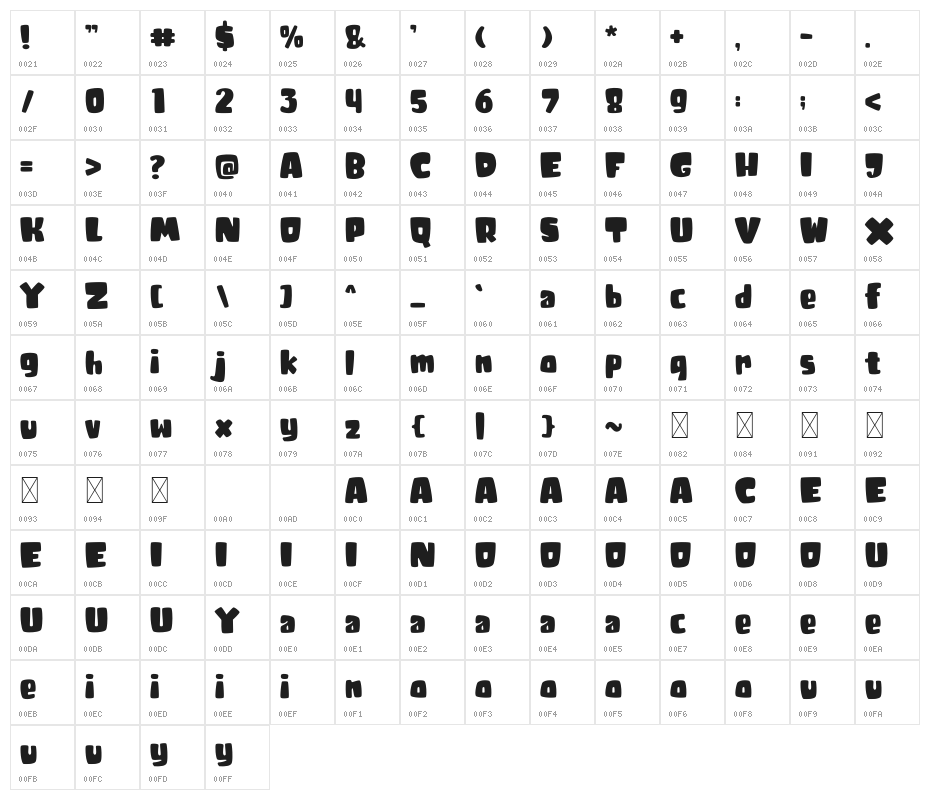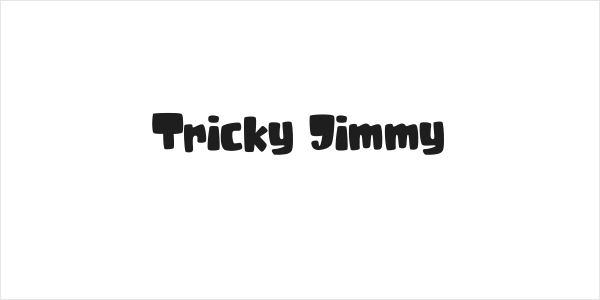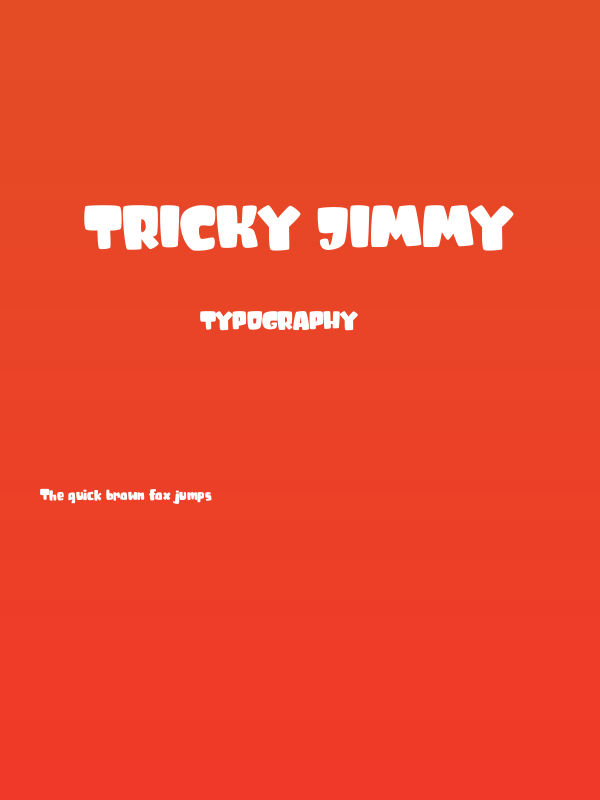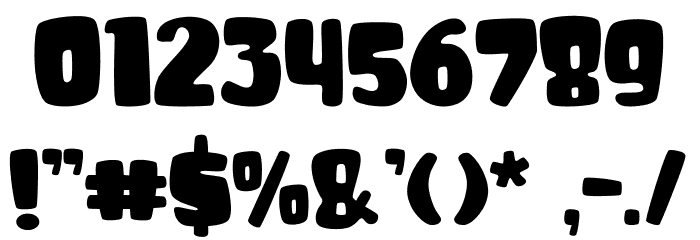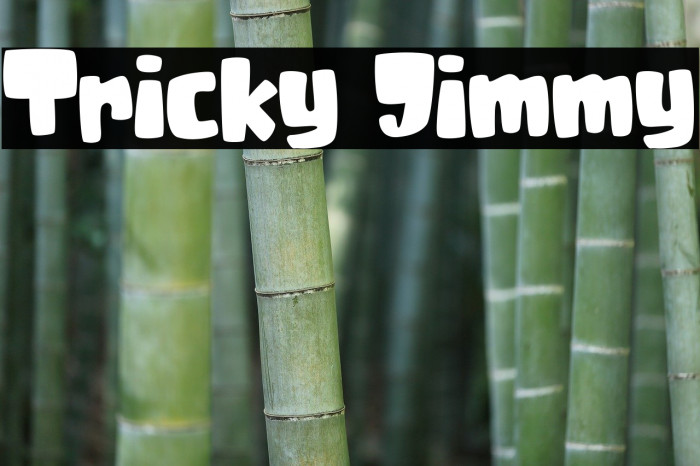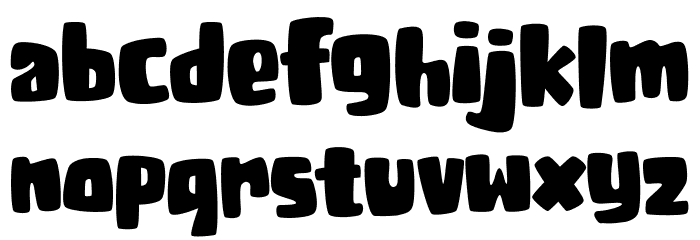
Tricky Jimmy Font
Tricky Jimmy Description
This font features a bold and playful style with thick, rounded characters that convey a sense of fun and energy. The letters are slightly irregular, adding a whimsical touch that makes it stand out. The uppercase and lowercase letters maintain a consistent weight, while the numbers and special characters are designed to match the overall playful aesthetic. The font's boldness and unique character shapes make it ideal for projects that require a lively and engaging appearance.
| Proposed Projects | Ideal for children's books, playful branding, party invitations, and comic-style graphics. |